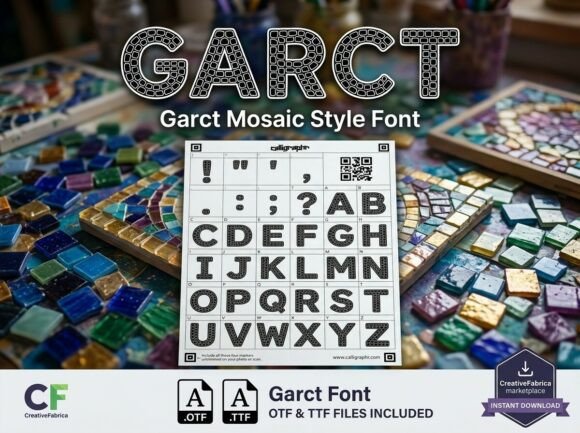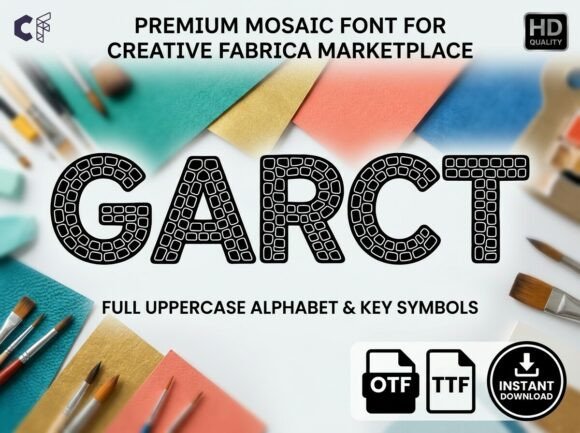
Introducing Garct Font: The Ultimate Decorative Display Font for Creative Minds
Are you tired of using the same old fonts for your creative projects? Do you want to make a statement with your designs and stand out from the crowd? Look no further than Garct Font, a stunning decorative display font that is sure to turn heads. In this article, we’ll take a closer look at what makes Garct Font so special and how it can elevate your designs to the next level.
Garct Font is a unique and artistic font that is designed to be the center of attention. With its strong visual personality and decorative elements, this font is perfect for creators who want to break away from the ordinary and make a bold statement. Whether you’re working on a logo, headline, or packaging design, Garct Font is the perfect choice for adding a touch of elegance and sophistication.
Before you make a purchase, it’s essential to note that Garct Font is an ALL-CAPS (Uppercase Only) display typeface. This means that it does not include lowercase letters. However, this limitation is by design, as Garct Font is specifically crafted for high-impact headlines, logos, and decorative initials where every letter is a work of art.
Garct Font is incredibly versatile and can be used for a range of design applications, including:
- Bold Headlines: Add a touch of drama and flair to your headlines with Garct Font’s unique and artistic elements.
- Artistic Logos: Create a lasting impression with a custom logo that showcases your brand’s personality and style.
- Creative Packaging: Stand out on store shelves with eye-catching packaging that features Garct Font’s decorative and polished finish.
Why Choose Garct Font?
So why choose Garct Font over other decorative display fonts on the market? Here are just a few reasons:
- Unique Artistic Elements: Garct Font features one-of-a-kind artistic elements that will set your designs apart from the rest.
- Professional and Polished Finish: Despite its decorative nature, Garct Font maintains a professional and polished finish that’s perfect for high-end designs.
- Easy to Use: With its simple and intuitive design, Garct Font is easy to use, even for those with limited design experience.
- Is Garct Font suitable for body text?
- No, Garct Font is a decorative display font designed for headlines, logos, and decorative initials.